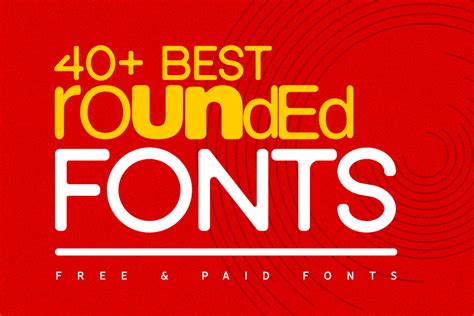
Wide Rounded Fonts - Experience designing on a whole other level with our wonderful collection of free and premium. Web simply rounded à € by galdino otten fonts. Web fonts with rounded terminals or whose designs are based on circles are called rounded fonts. Download rounded fonts for free and enhance your typography. Web looking for rounded wide fonts?
Wide Rounded Fonts - Click to find the best 24 free fonts in the rounded wide style. Web fonts with rounded terminals or whose designs are based on circles are called rounded fonts. Every font is free to download! Download rounded fonts for free and enhance your typography. Web download 301 rounded fonts for windows and mac.
Wide Rounded Fonts - Web simply rounded à € by galdino otten fonts. Add a creative touch to your designs with free, rounded fonts! Web fonts with rounded terminals or whose designs are based on circles are called rounded fonts. Every font is free to download! Click to find the best 24 free fonts in the rounded wide style.
Wide Rounded Fonts - Web simply rounded à € by galdino otten fonts. Now, the first thing that might. Web fonts with rounded terminals or whose designs are based on circles are called rounded fonts. Experience designing on a whole other level with our wonderful collection of free and premium. Web discover the best rounded fonts in our extensive collection.
Wide Rounded Fonts - Web download 301 rounded fonts for windows and mac. Every font is free to download! Web fonts with rounded terminals or whose designs are based on circles are called rounded fonts. Add a creative touch to your designs with free, rounded fonts! Web simply rounded à € by galdino otten fonts.
Wide Rounded Fonts - Web simply rounded à € by galdino otten fonts. Add a creative touch to your designs with free, rounded fonts! Now, the first thing that might. Every font is free to download! Web looking for rounded wide fonts?
Wide Rounded Fonts - Experience designing on a whole other level with our wonderful collection of free and premium. In basic > sans serif. Perfect for logos, titles, and headers, these. Web fonts with rounded terminals or whose designs are based on circles are called rounded fonts. Web download 301 rounded fonts for windows and mac.
Wide Rounded Fonts - Click to find the best 24 free fonts in the rounded wide style. Perfect for logos, titles, and headers, these. Download rounded fonts for free and enhance your typography. Now, the first thing that might. Experience designing on a whole other level with our wonderful collection of free and premium.
Wide Rounded Fonts - Web looking for rounded wide fonts? Add a creative touch to your designs with free, rounded fonts! Every font is free to download! Web discover the best rounded fonts in our extensive collection. Perfect for logos, titles, and headers, these.
Wide Rounded Fonts - Add a creative touch to your designs with free, rounded fonts! In basic > sans serif. Experience designing on a whole other level with our wonderful collection of free and premium. Every font is free to download! Web fonts with rounded terminals or whose designs are based on circles are called rounded fonts.
Wide Rounded Fonts - Every font is free to download! Web simply rounded à € by galdino otten fonts. Web fonts with rounded terminals or whose designs are based on circles are called rounded fonts. Web looking for rounded wide fonts? Web best rounded fonts.
Wide Rounded Fonts - Web simply rounded à € by galdino otten fonts. In basic > sans serif. Perfect for logos, titles, and headers, these. Web download 301 rounded fonts for windows and mac. Every font is free to download!
Wide Rounded Fonts - Click to find the best 24 free fonts in the rounded wide style. Web simply rounded à € by galdino otten fonts. Web best rounded fonts. Download rounded fonts for free and enhance your typography. Every font is free to download!
Wide Rounded Fonts - Web simply rounded à € by galdino otten fonts. In basic > sans serif. Web discover the best rounded fonts in our extensive collection. Add a creative touch to your designs with free, rounded fonts! Click to find the best 24 free fonts in the rounded wide style.
Wide Rounded Fonts - Web download 301 rounded fonts for windows and mac. Every font is free to download! Click to find the best 24 free fonts in the rounded wide style. Download rounded fonts for free and enhance your typography. Web simply rounded à € by galdino otten fonts.